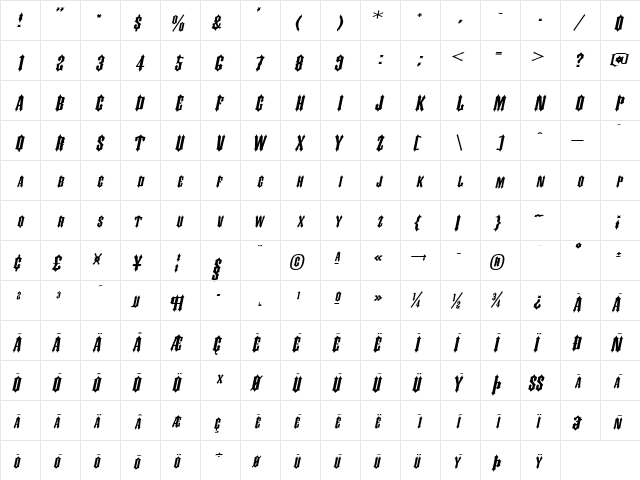
SlayerExtended Italic
Design Context for SlayerExtended Typeface
SlayerExtended is a composed and adaptable typeface that performs quietly and consistently across a wide range of design contexts. Its italic angle brings a sense of urgency and motion to the letterforms.
Pro Tip: Try SlayerExtended for annotation and caption copy alongside an upright companion — the contrast in angle creates a dynamic but ordered typographic system.